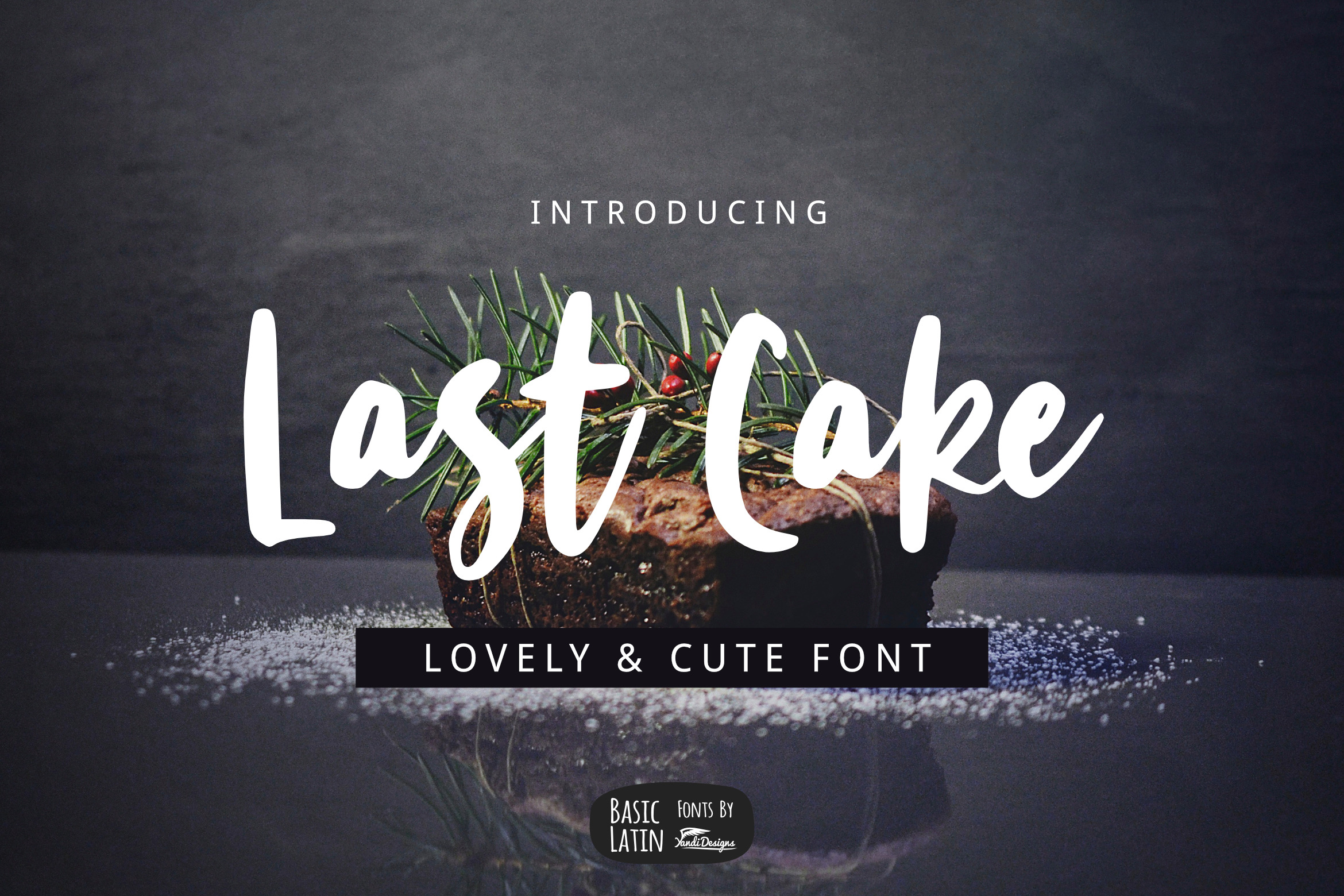
Last Cake Font
Last Cake is simple and lovely multipurpose script font , suitable for many project children book, quotes, logo , heading , title etc.